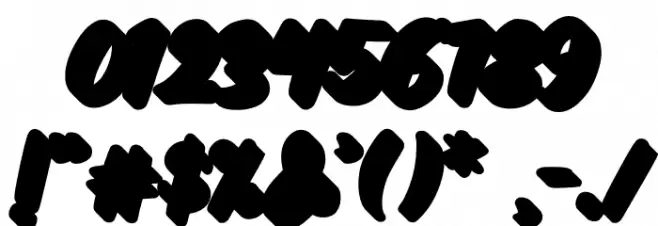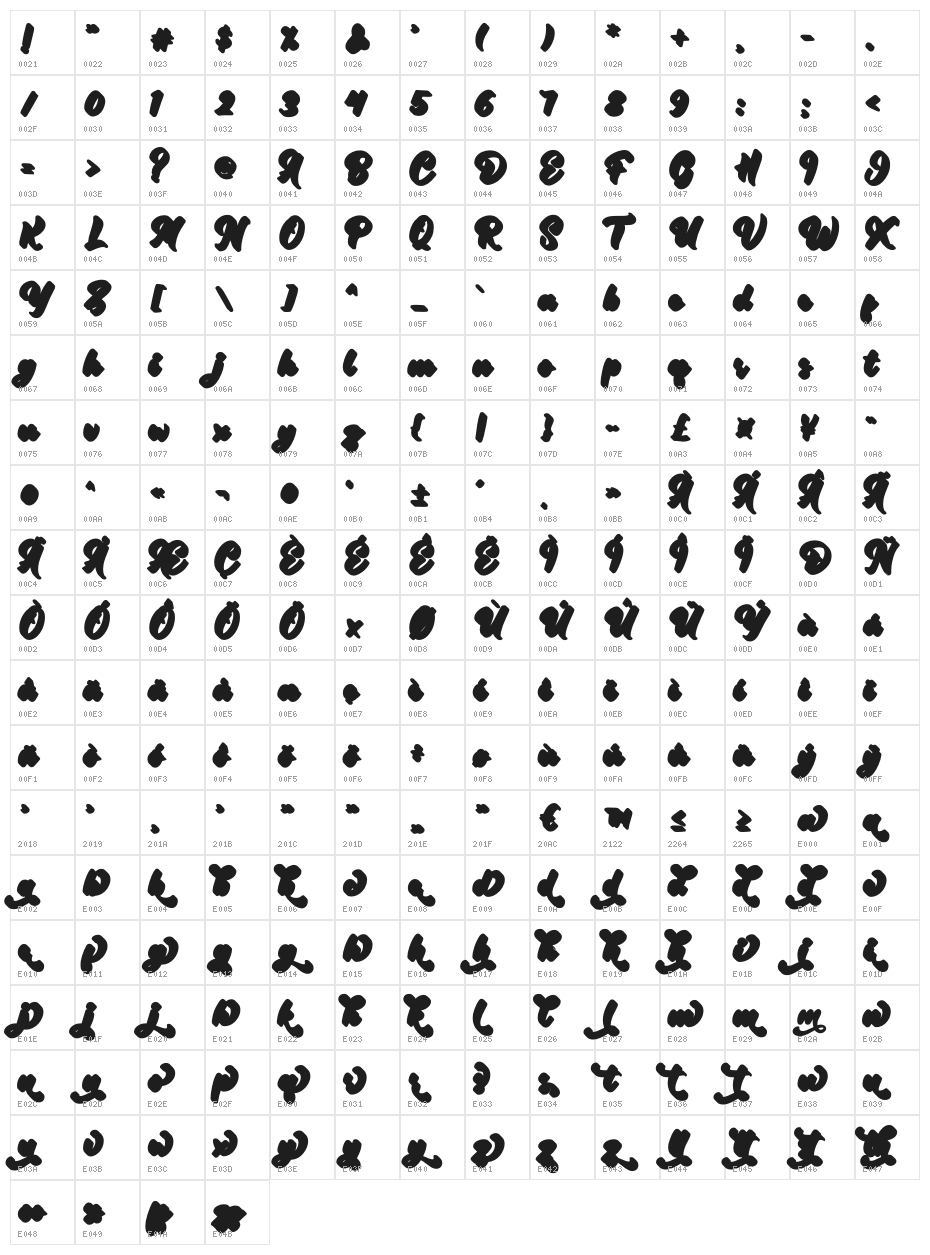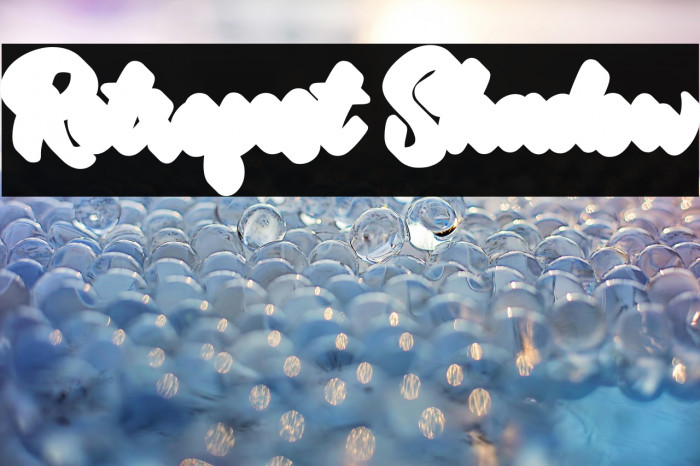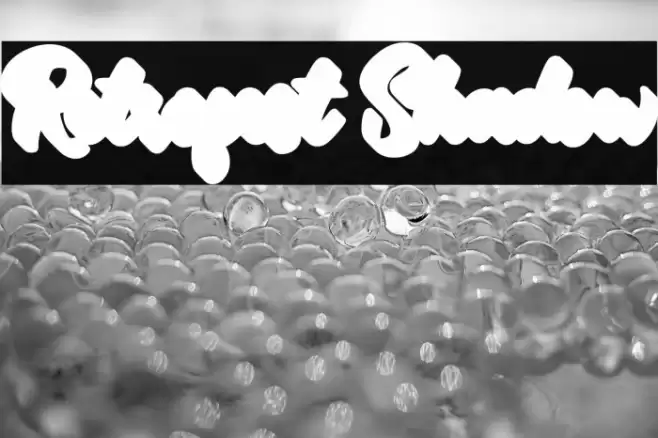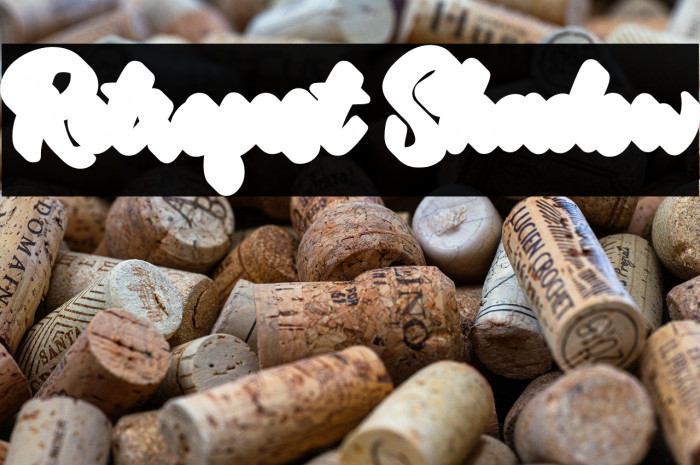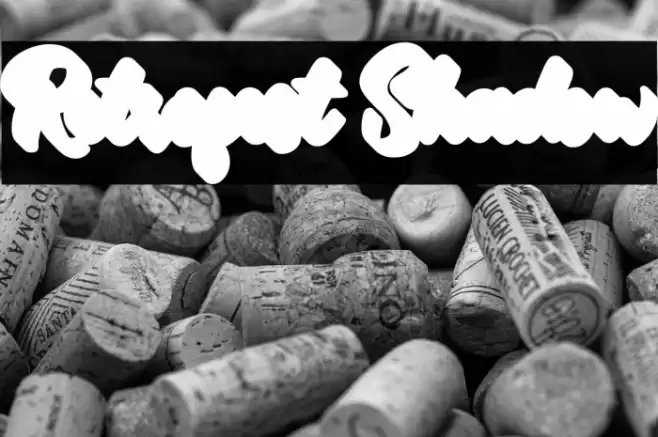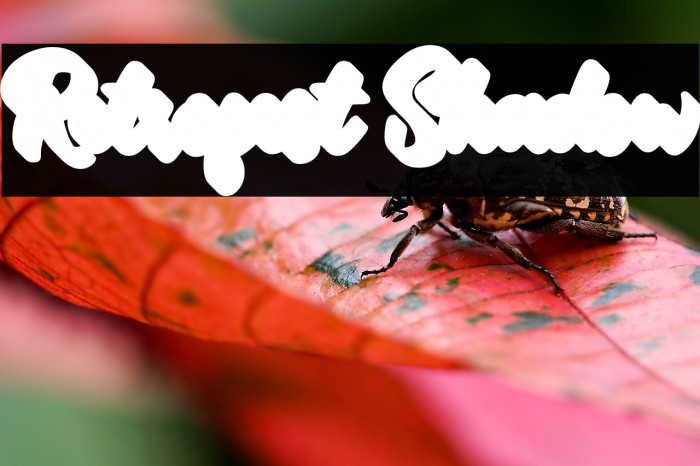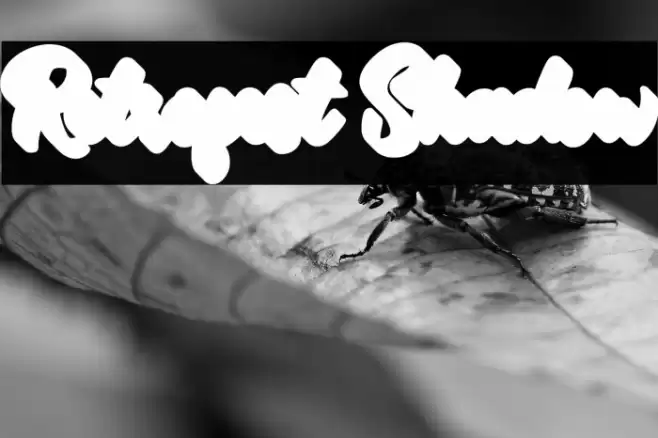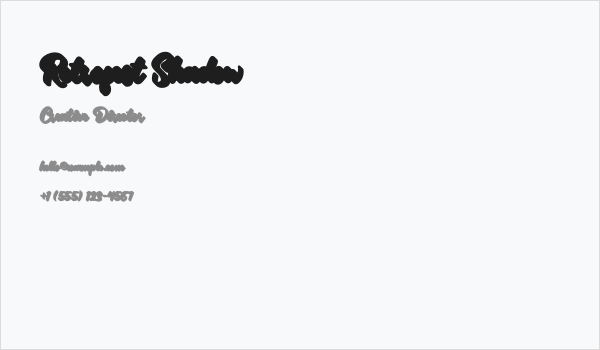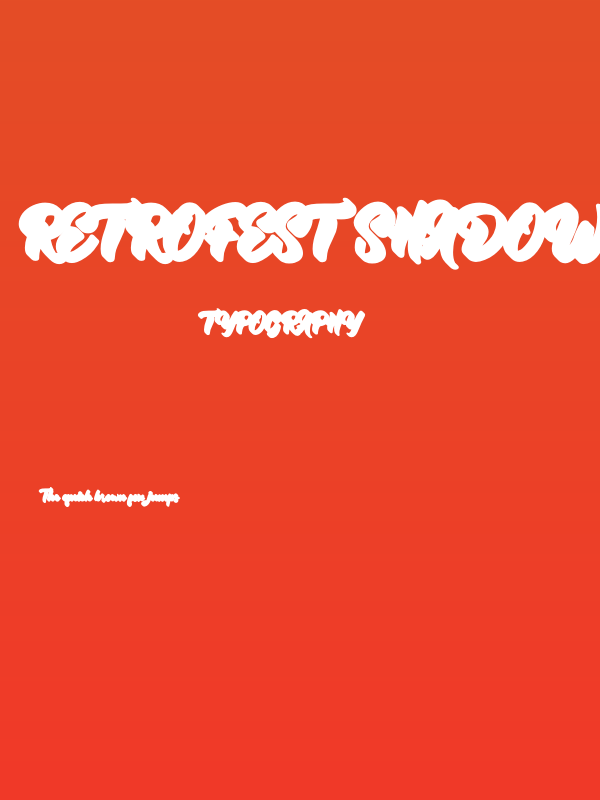
Retrofest Shadow Font
Retrofest Shadow Description
This font features a bold and dynamic script style with a strong shadow effect, giving it a three-dimensional appearance. The characters are closely connected, creating a fluid and cohesive look. The uppercase letters are bold and prominent, while the lowercase letters maintain a consistent flow. Numbers and special characters are designed to match the overall aesthetic, ensuring uniformity across all elements. The font's playful and energetic style makes it stand out, ideal for projects that require a touch of retro flair and boldness.
| Overall Style | Retro, Decorative |
| Proposed Projects | Ideal for retro-themed posters, event invitations, logo designs, and branding materials that require a bold and playful touch. |